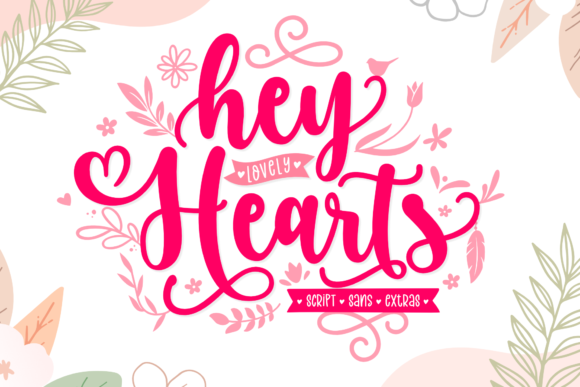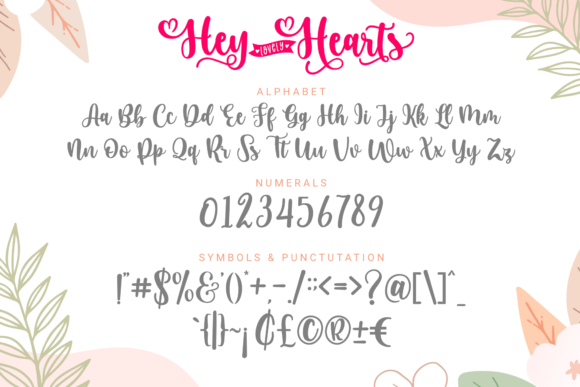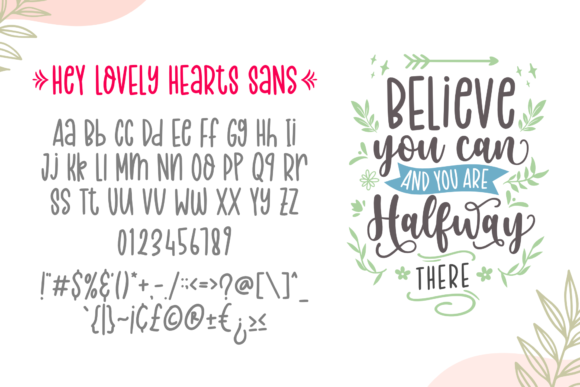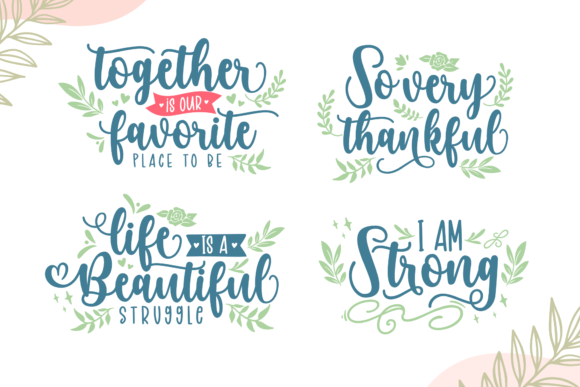
Hey Lovely Hearts Font: A Cute Handwritten Font Pairing!
About the Hey Lovely Hearts Font
Explore the possibilities with Hey Lovely Hearts Font, a font that offers both beauty and functionality. Hey Lovely Hearts is a sweet, all round and flexible duo (sans serif and handwritten). Warm, romantic and jolly, this font will turn each of your project ideas into real works of art. Have fun with this beautiful font and explore its endless variations.
This font duo excels in projects requiring a touch of playful elegance. Ideal applications include branding for boutiques, wedding stationery, or social media graphics where its romantic charm shines. The handwritten style is perfect for short quotes or logos, while the sans-serif complement provides readability for essential text elements. However, avoid using the script font for large bodies of text or UI elements; its decorative nature compromises readability in those contexts.
Pairing Hey Lovely Hearts with a clean sans-serif like Lato or Open Sans will create a balanced and modern feel. For a more vintage aesthetic, consider pairing the script with a serif font like Playfair Display. A geometric sans-serif like Montserrat could add a contemporary edge, offering a nice contrast to the hand-drawn quality of the script.
The overall personality is best described as charming and approachable, with a touch of vintage sweetness. It’s a versatile option for projects that need a friendly, yet sophisticated, feel.
Hey Lovely Hearts Font Usage Examples
Hey Lovely Hearts Font Example